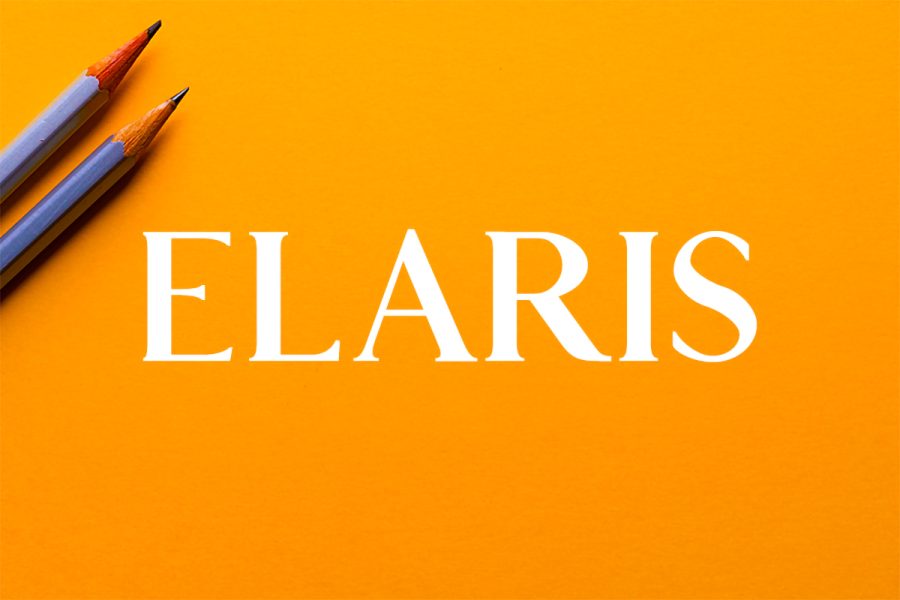
Elaris Serif Free Typeface
Elaris Serif Free Typeface is a dashing, high-class serif font. Featuring flowing letterforms, wide language support and lots of character, Elaris is the perfect font for headlines, titles, and logos. This free typeface is a tribute to the typographic traditions of the past and step a brighter, more elegant future. So, today you can have Elaris Regular for its free demo!